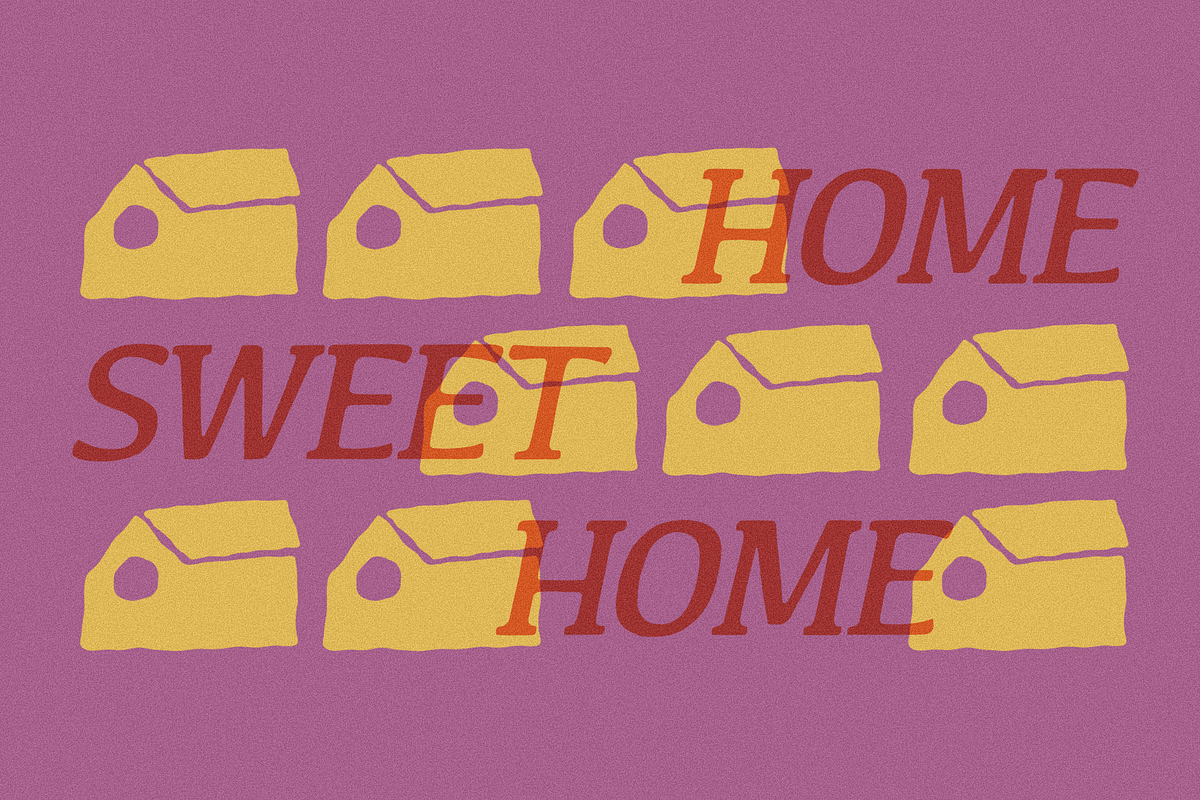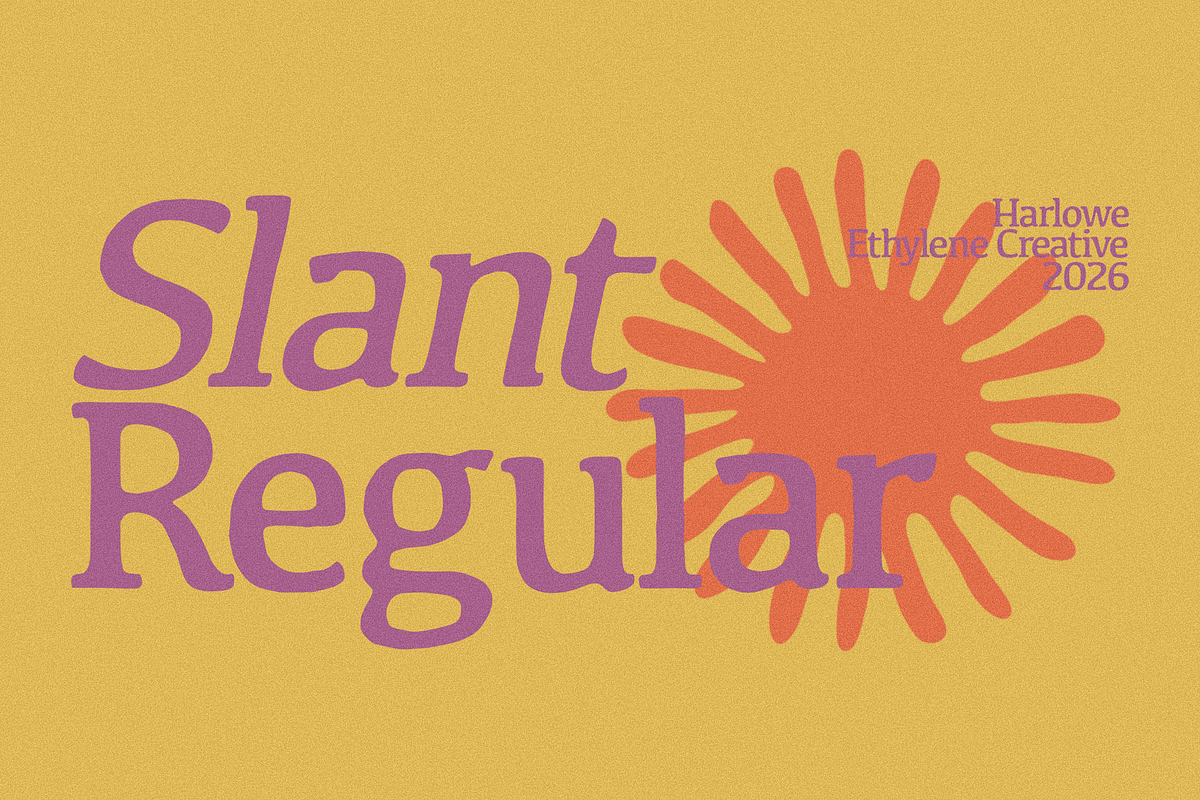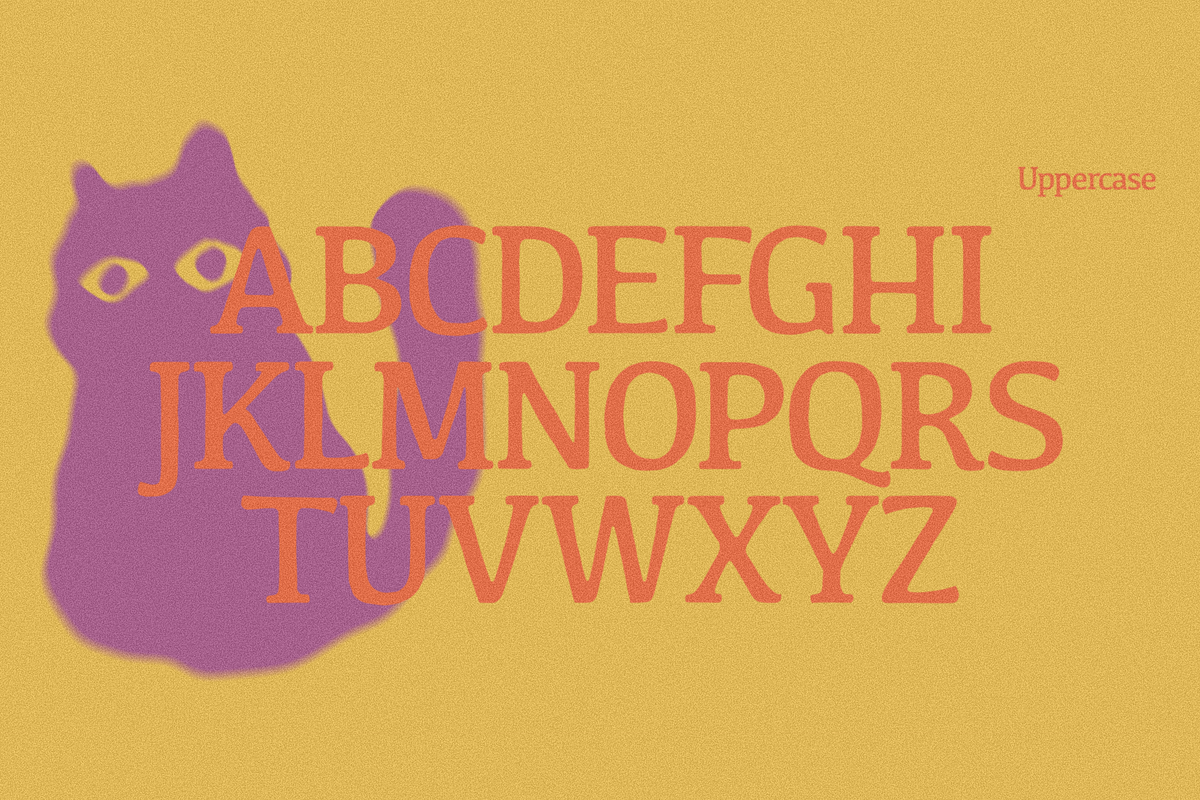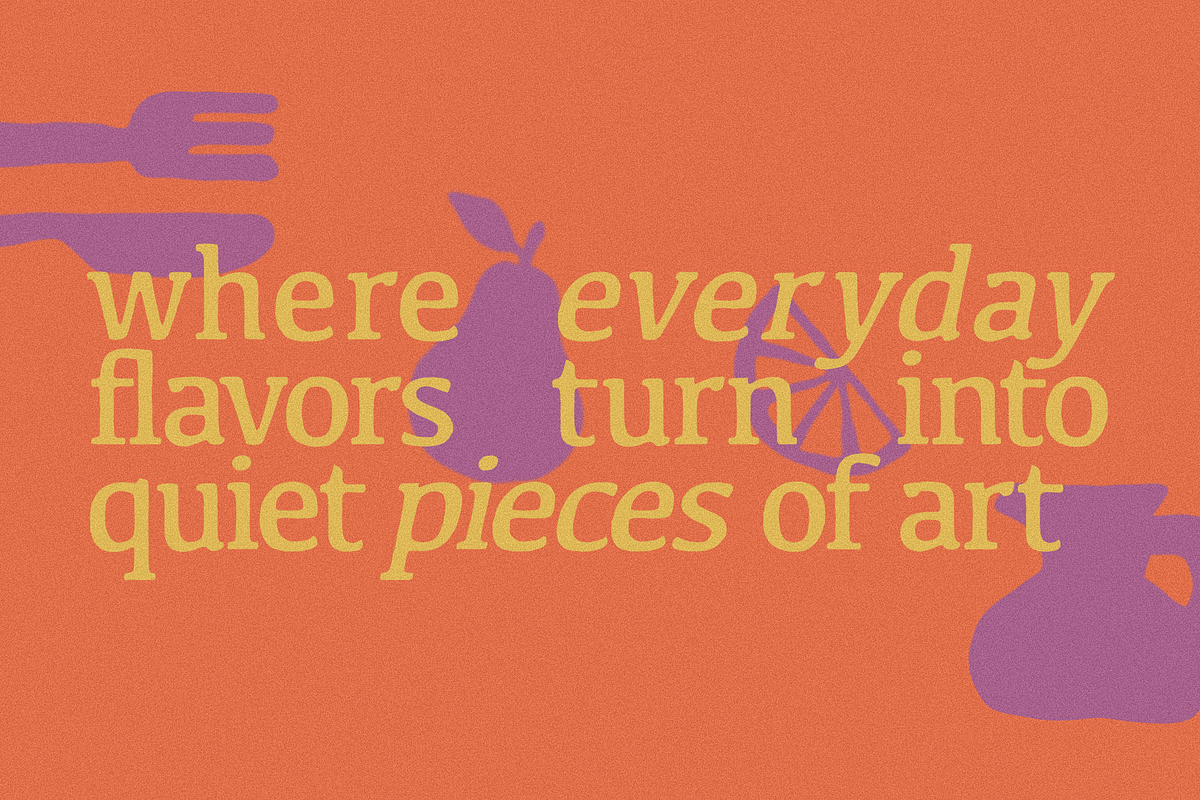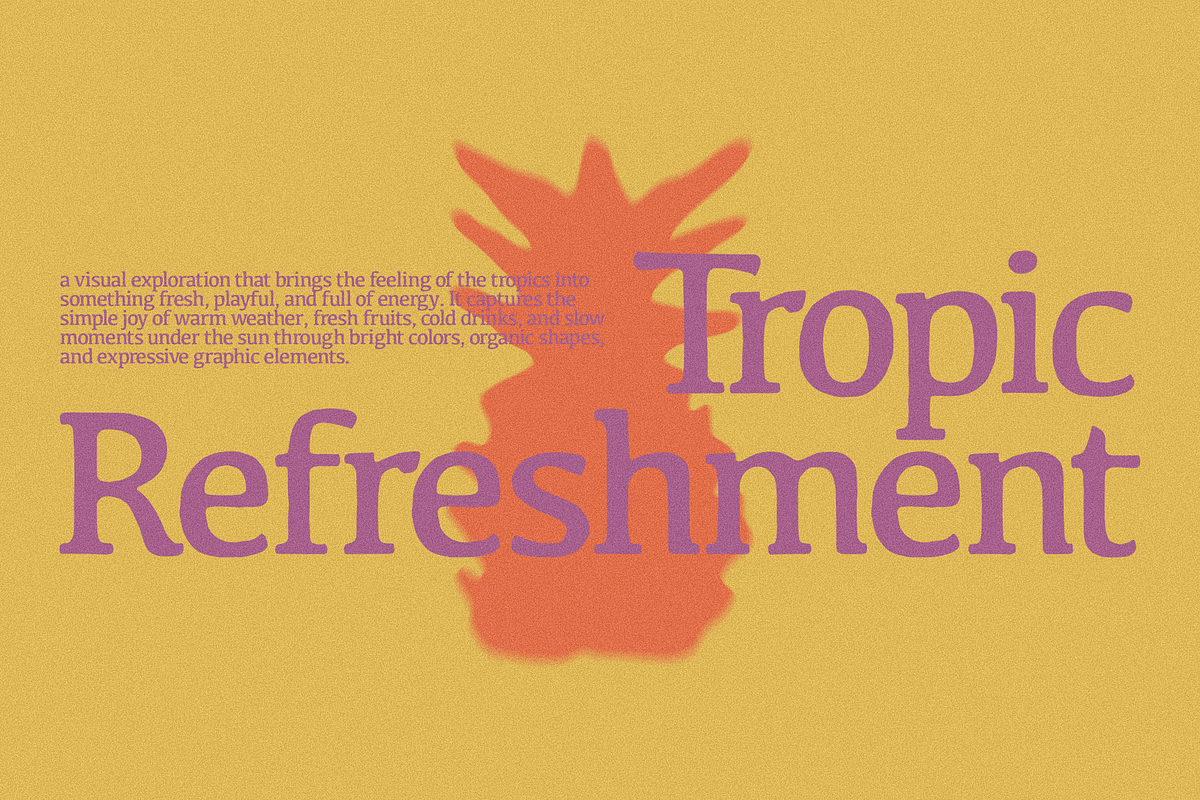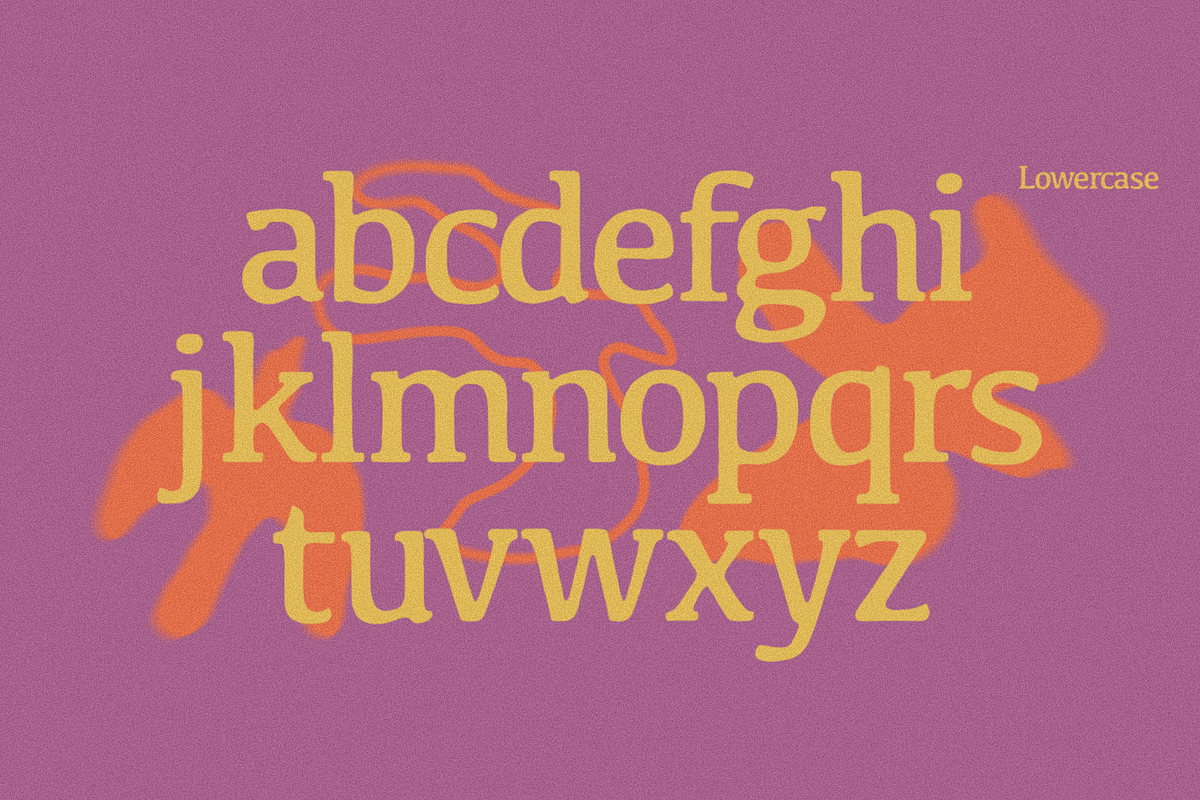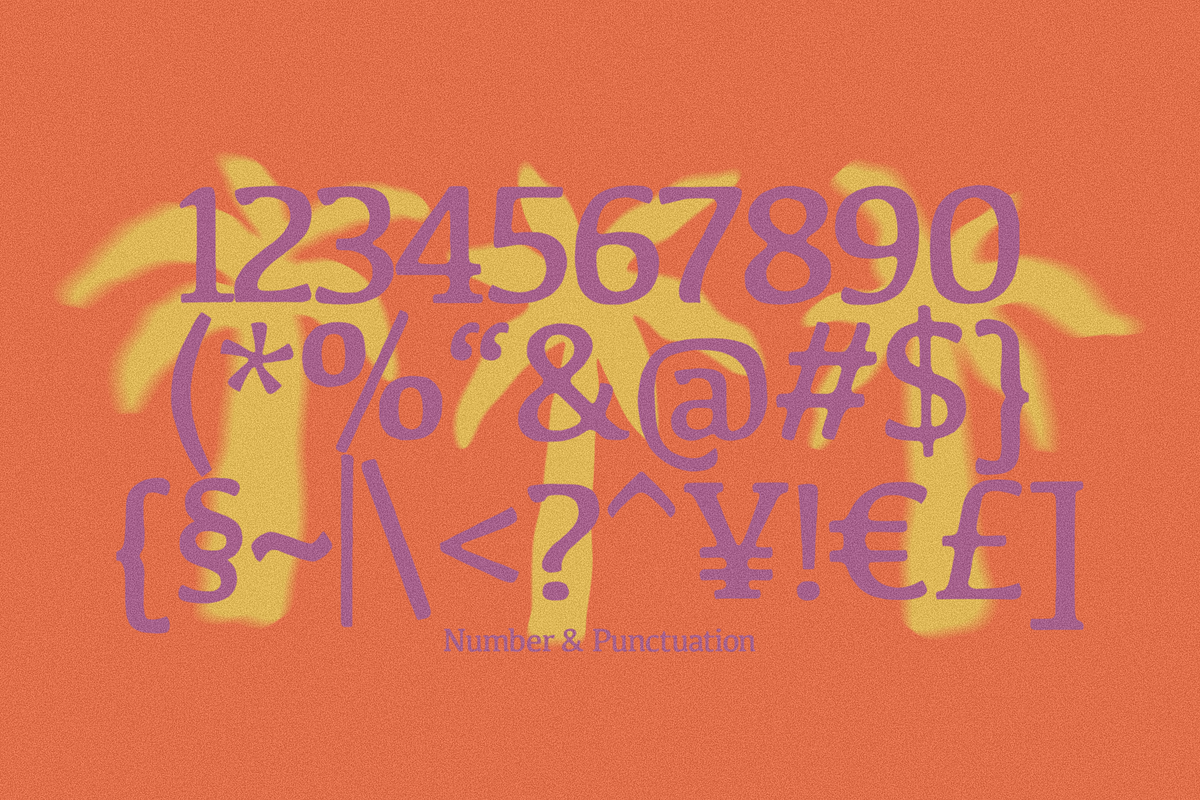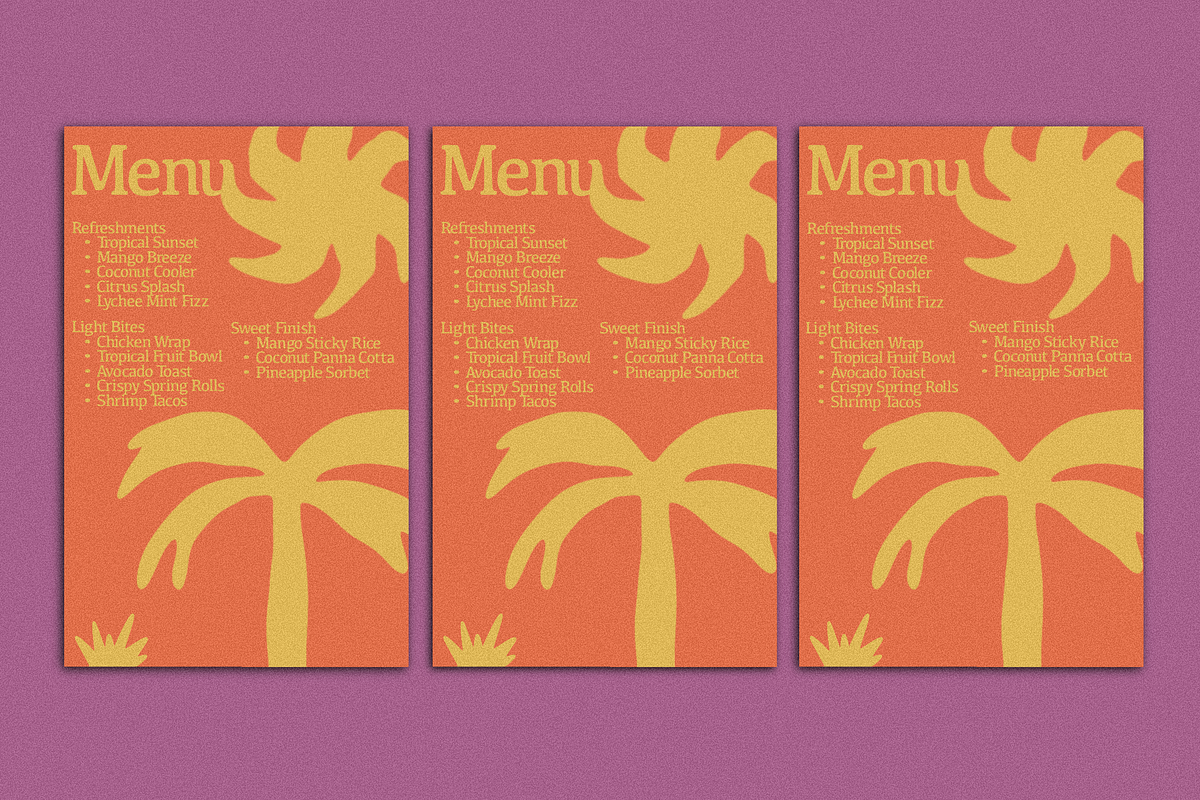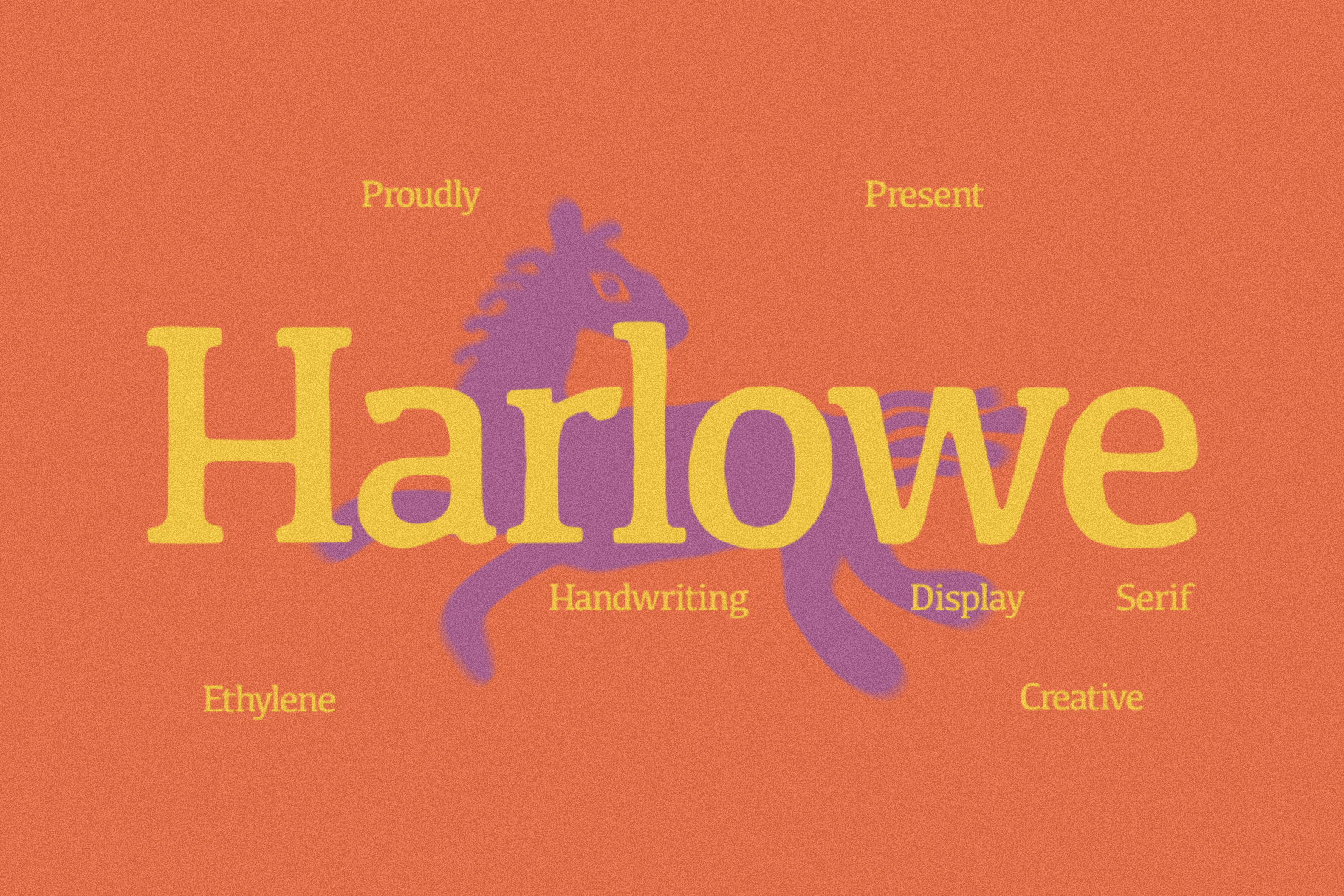
Harlowe – Natural Display Serif Font
Harlowe – Display Serif Font
Harlowe is a warm and expressive display serif that blends classic elegance with a playful artistic spirit. Designed with soft curves, organic proportions, and gently irregular details, Harlowe brings a handcrafted personality to every word while remaining refined enough for modern editorial and branding work.
Its distinctive serif forms create a calm and memorable presence, making it ideal for projects that need both sophistication and character. Whether used in large headlines or carefully styled layouts, Harlowe delivers a unique visual rhythm that feels timeless, creative, and inviting.
Perfect for
Editorial design
Branding and visual identity
Packaging design
Food and beverage branding
Beauty and lifestyle products
Boutique and artisan brands
Book covers and magazines
Posters and creative campaigns
Website headers and hero titles
Harlowe was created for designers who appreciate typography with emotion. The letterforms feel soft and human rather than mechanical, giving your compositions a poetic and contemporary vintage atmosphere.
Use Harlowe to turn everyday words into beautiful visual statements — elegant, artistic, and effortlessly memorable.